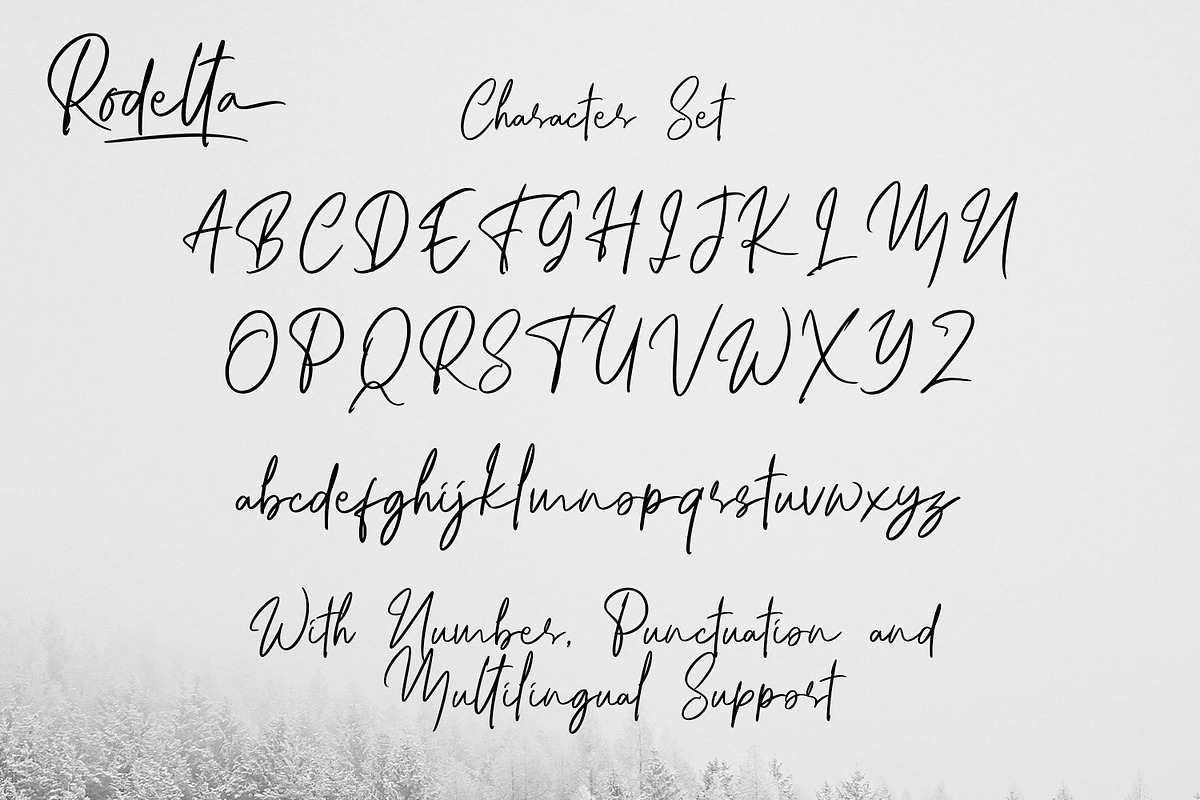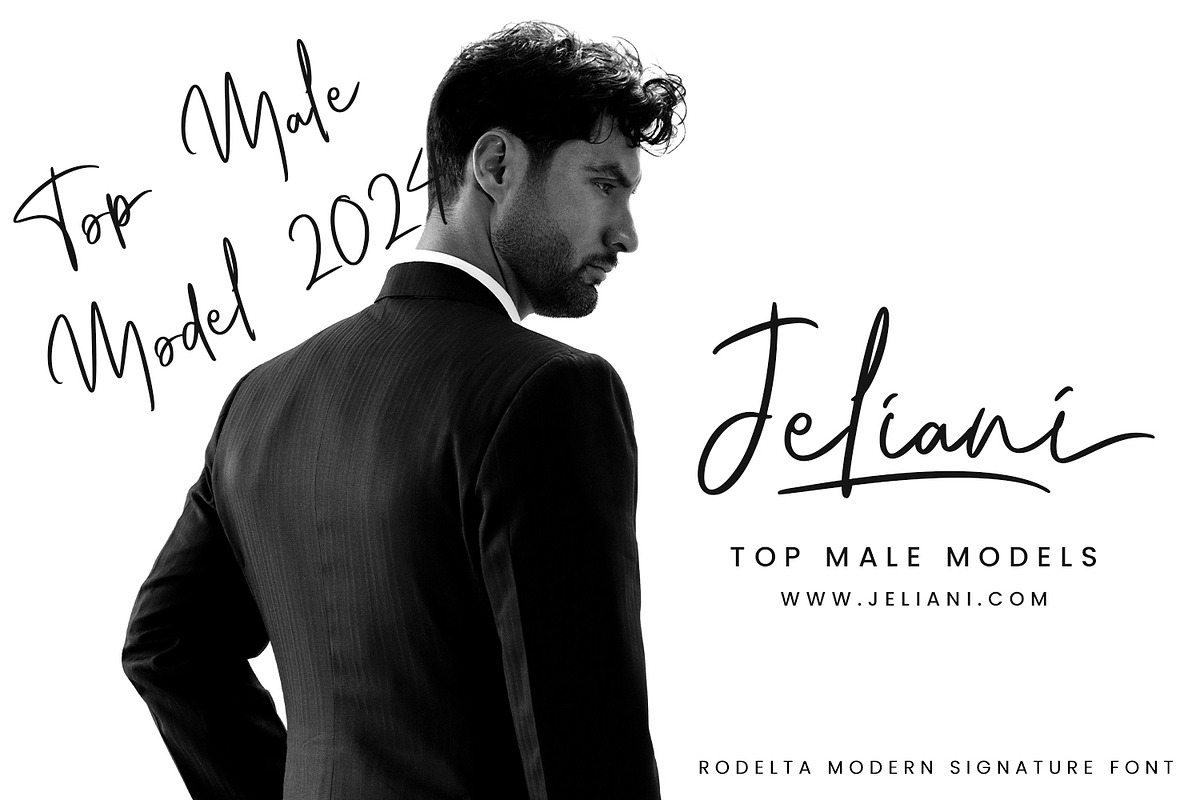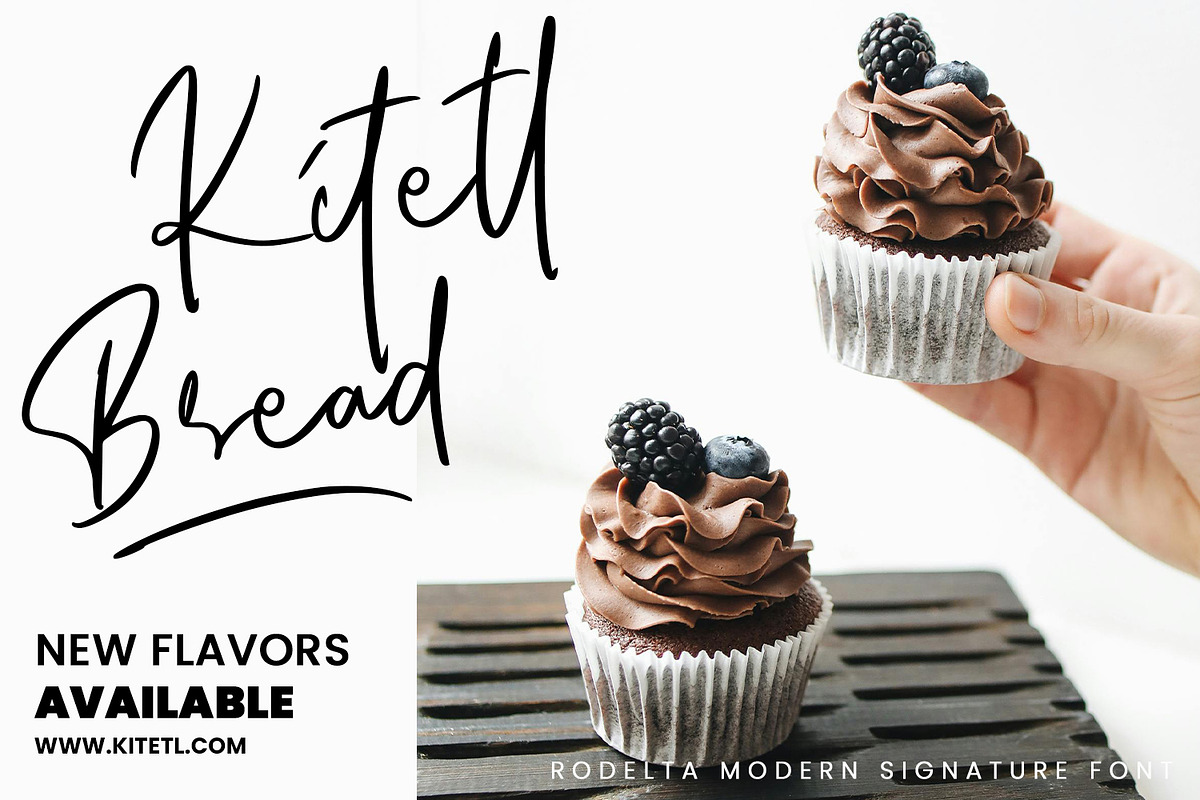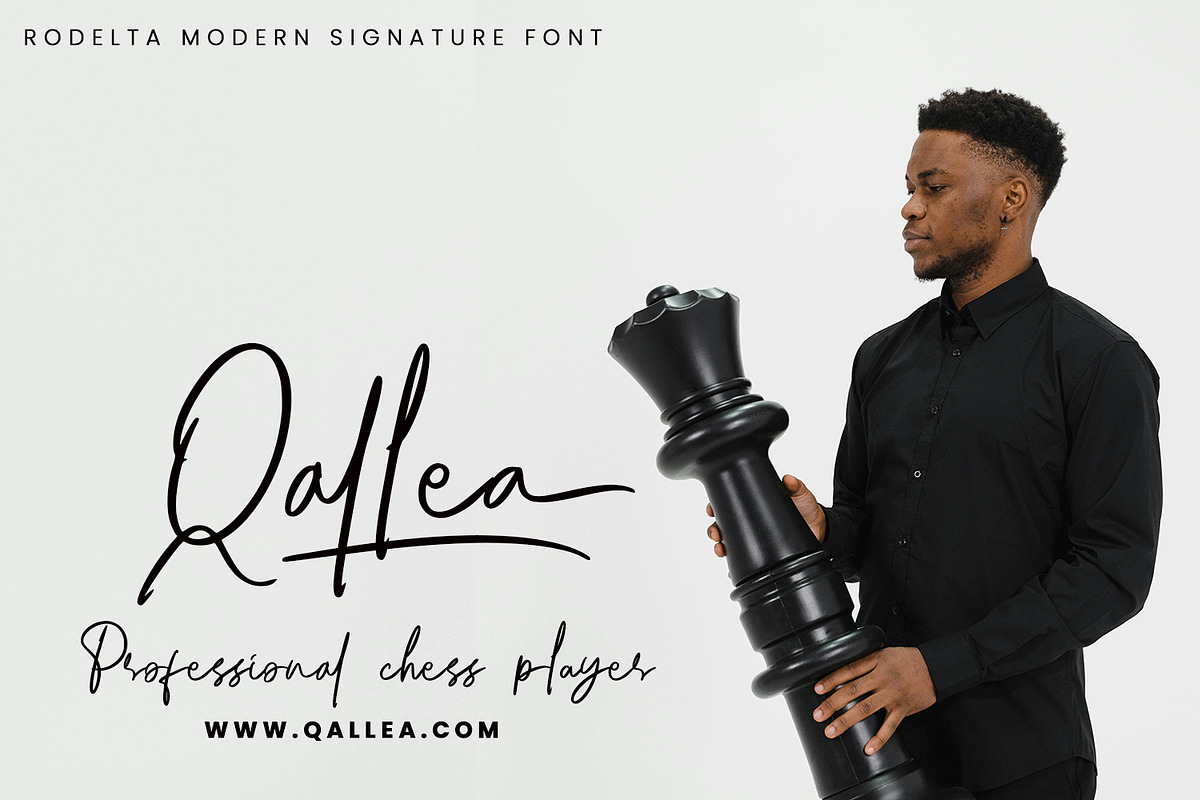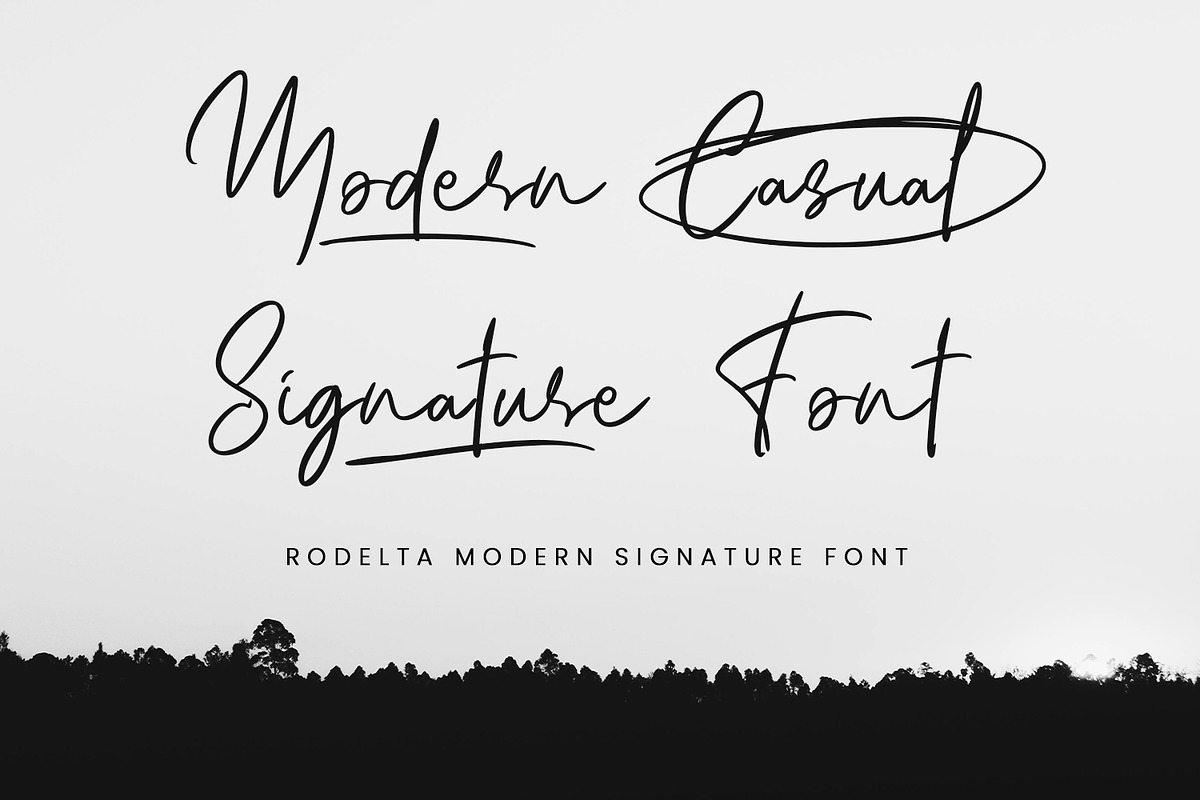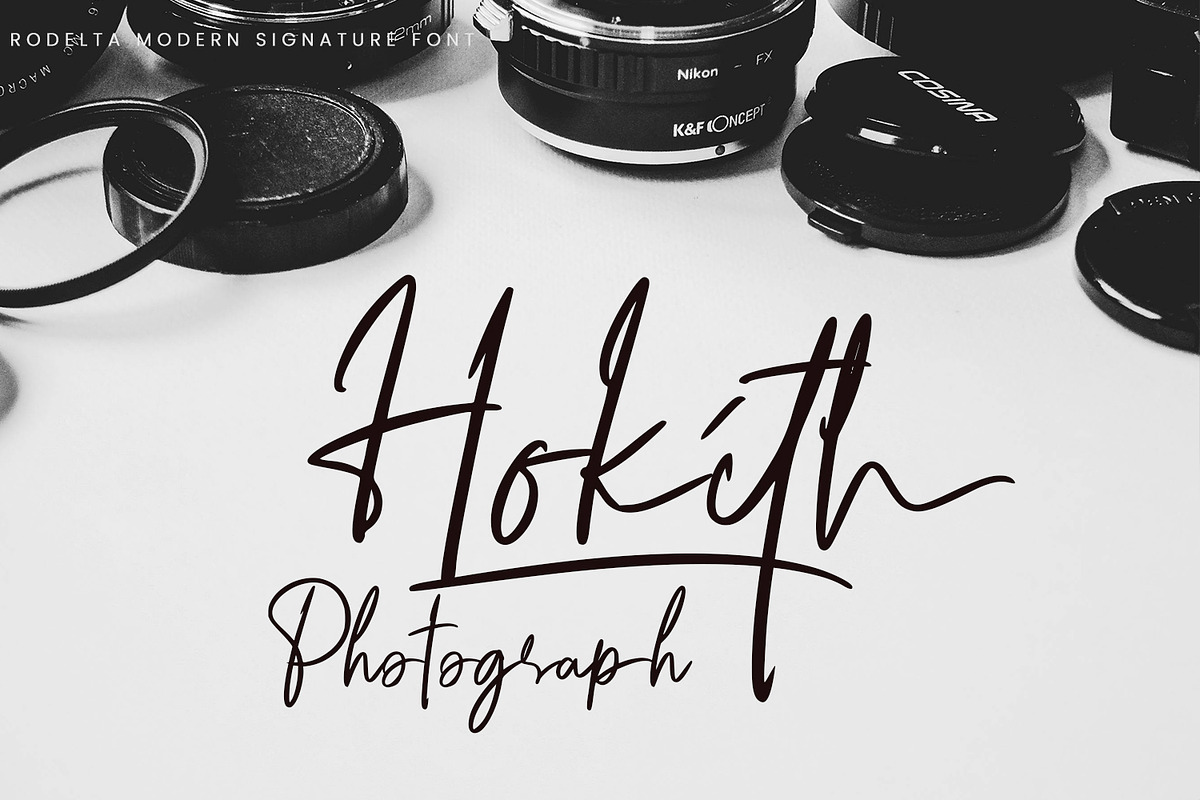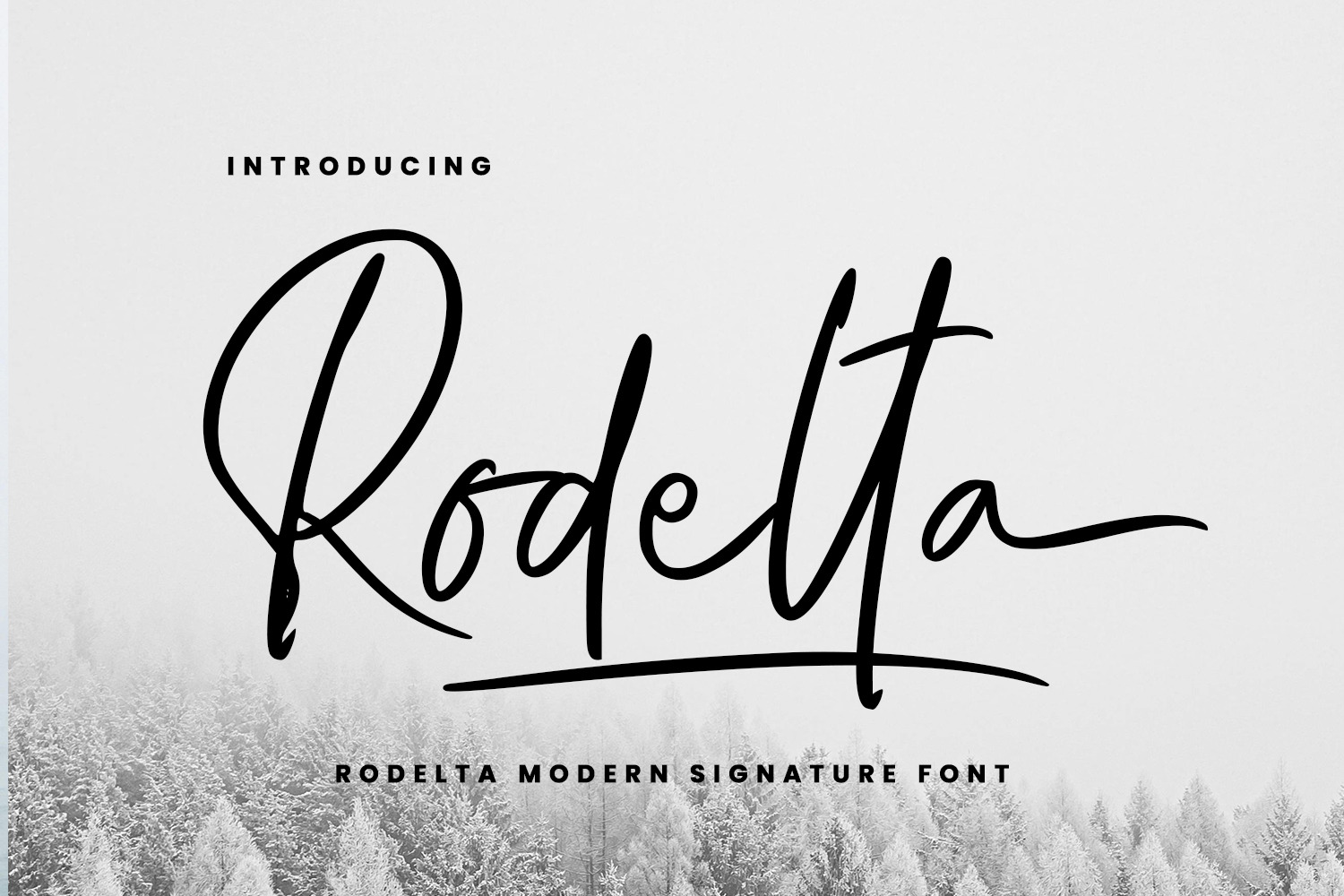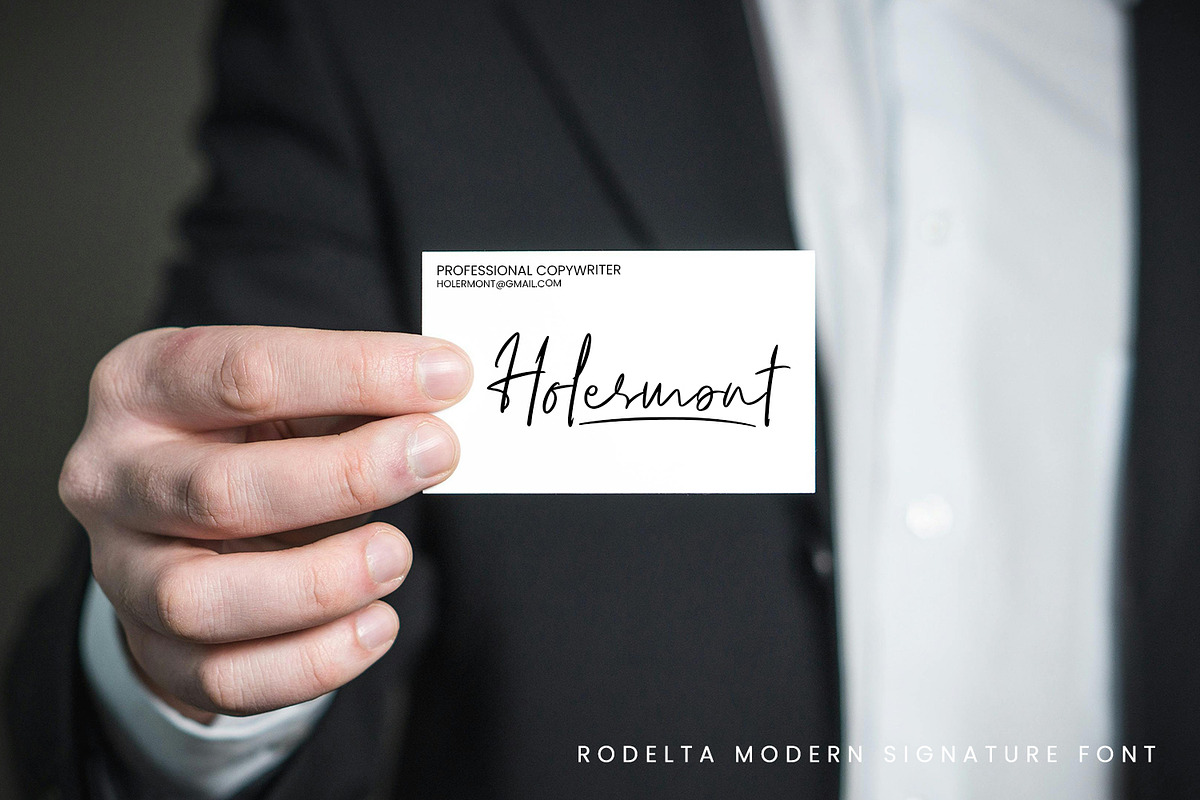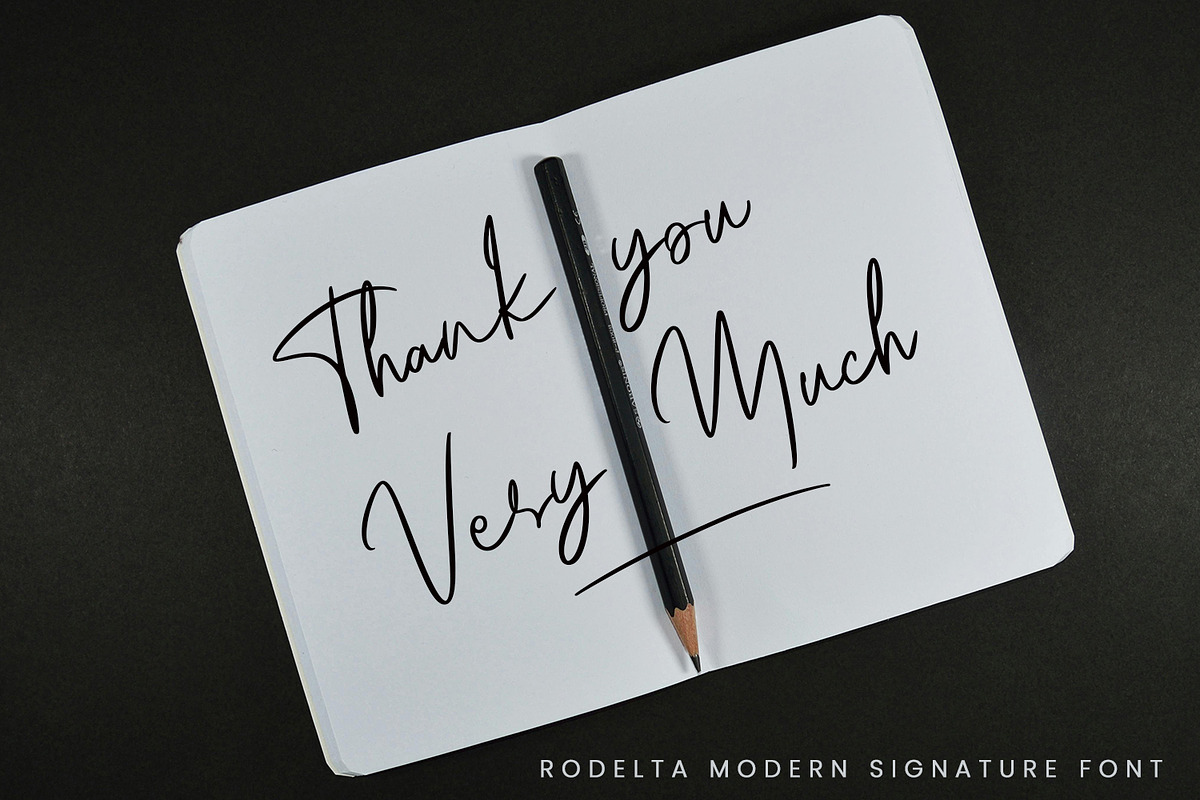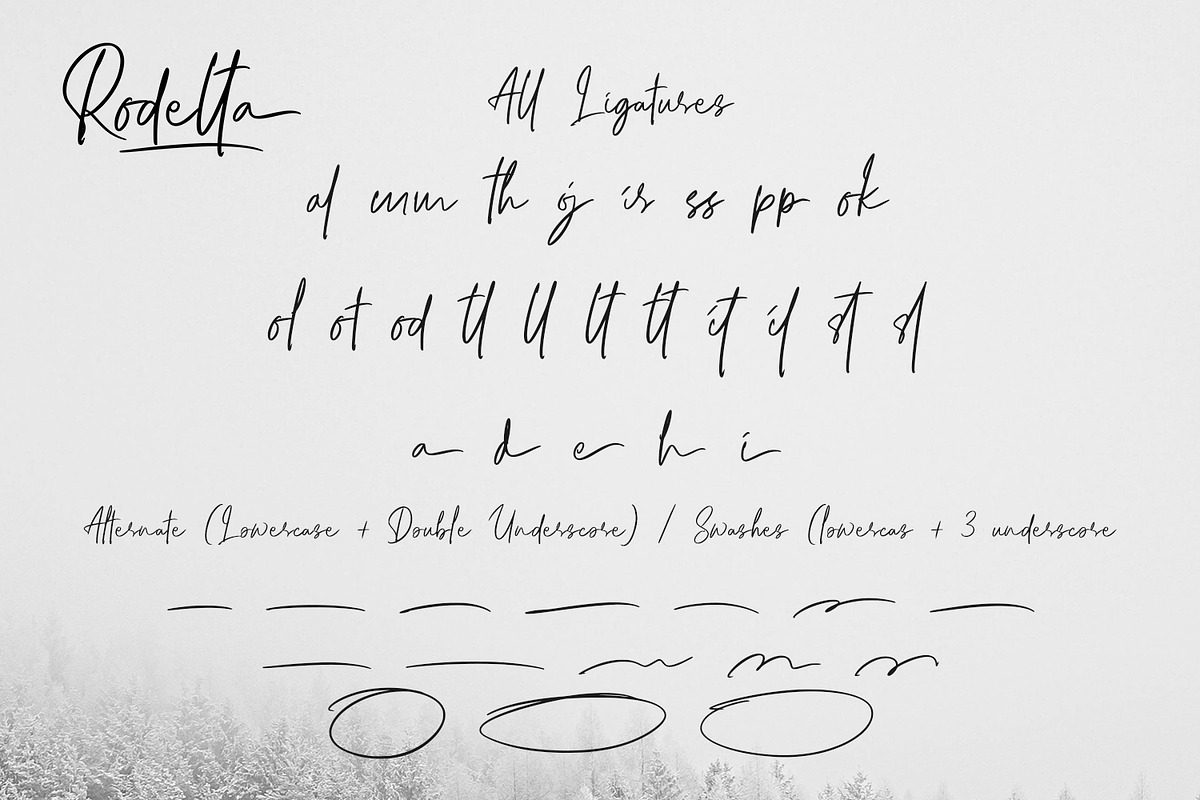
Rodelta - Modern Signature Font
Rodelta is a modern signature font designed to bring an elegant and personal touch to your various design projects. With its smooth and dynamic handwritten style, Rodelta is perfect for creating an exclusive feel in invitations, branding, and social media content.